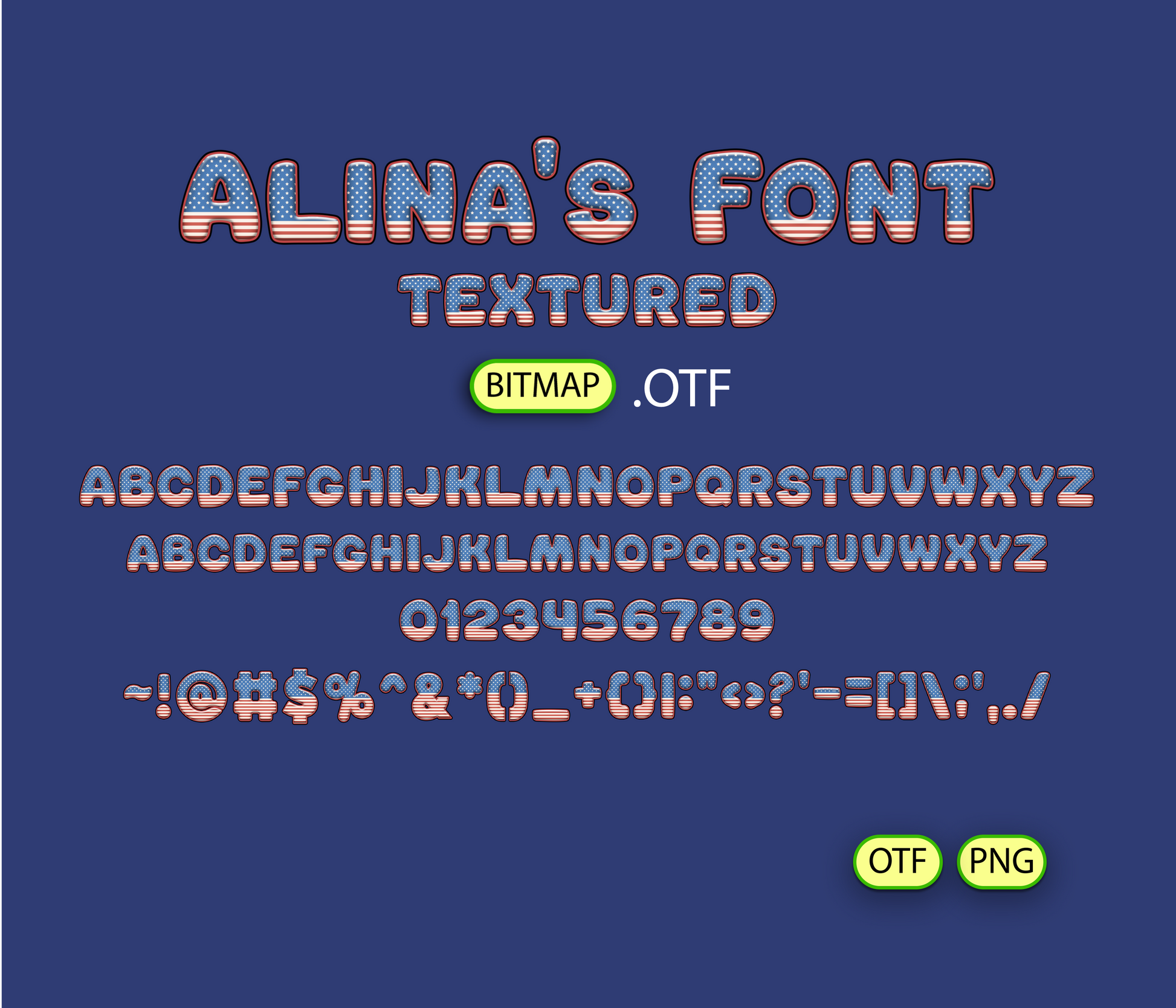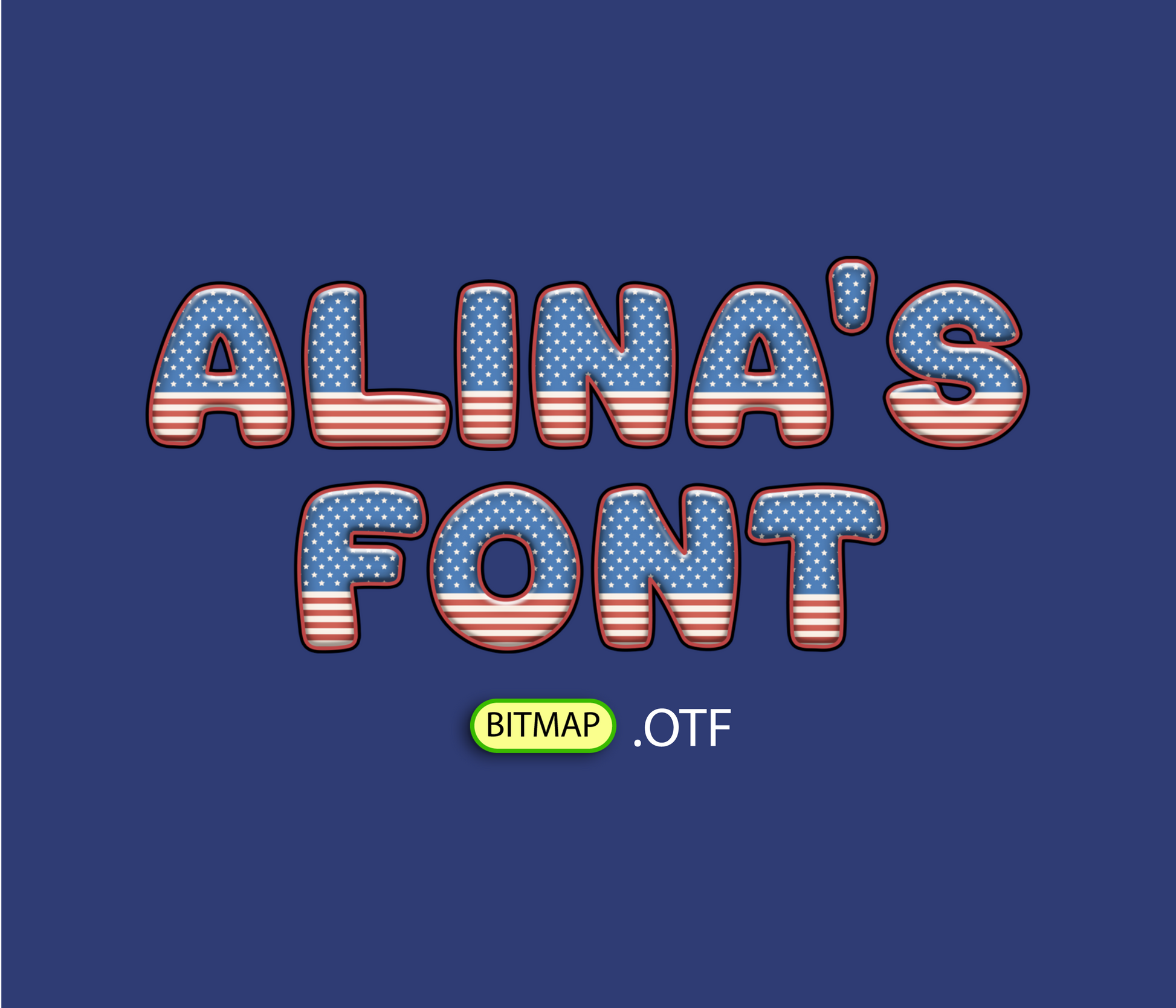
Fireworks Freedom Typography Textured Celebration Edition
Dive into the electrifying world of American jubilation with our Fireworks Freedom Typography, capturing the essence of national festivity and democratic pride. Perfect for celebration planners, patriotic designers, community organizers, and creative specialists, this font brings the explosive, triumphant spirit of summer liberty festivals to your design projects. Generate spectacular invitations, freedom-themed branding, or digital presentations with the radiant, ceremonial power of constitutional anniversary celebrations.
Our Fireworks Freedom Typography features explosive, banner-styled forms and celebratory characters reflecting the grand yet spirited aesthetic of midsummer democratic festivities. Ideal for:
- Celebration Coordination: Produce dazzling flyers, displays, and marketing materials for backyard gatherings, pyrotechnic shows, and patriotic assemblies
- Memorial Styling: Outstanding for historical displays, veteran acknowledgments, and democracy-themed products that celebrate national principles
- Web Design: Elevate online portfolios, blog platforms, and social channels with striking headers and imagery that convey festive nationalism
- Public Events: Perfect for civic announcements, municipal projects, and advertising materials for town celebrations
- Hobby Projects: Incorporate festive elements into photo albums, custom crafts, and household decorations inspired by founding father traditions